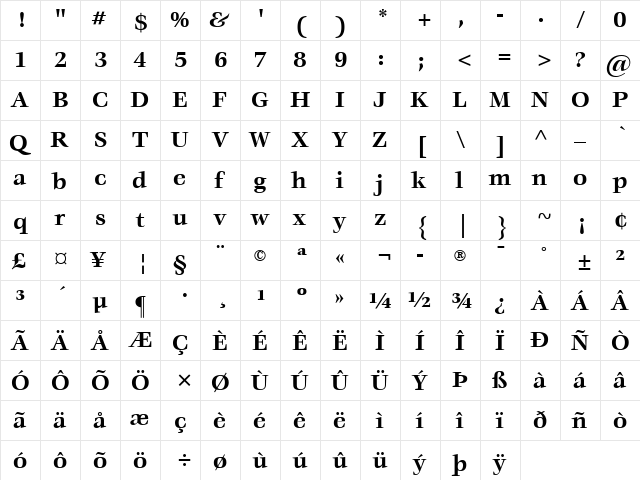
Veljovic LT Book Bold
Design Context for Veljovic LT Book Typeface
Veljovic LT Book offers clean, dependable letterforms without strong stylistic allegiance, making it a practical choice for designers who need flexibility. The heavy weight commands attention and anchors typographic hierarchies.